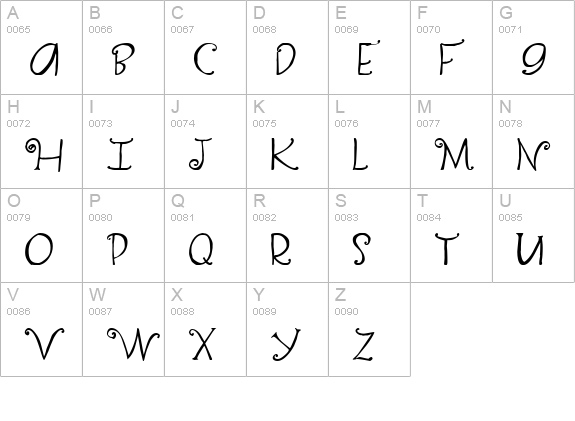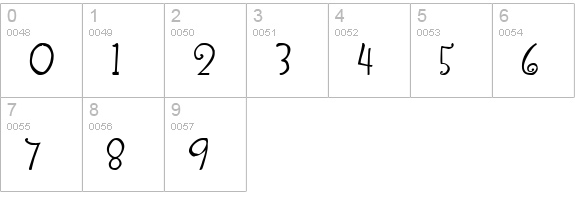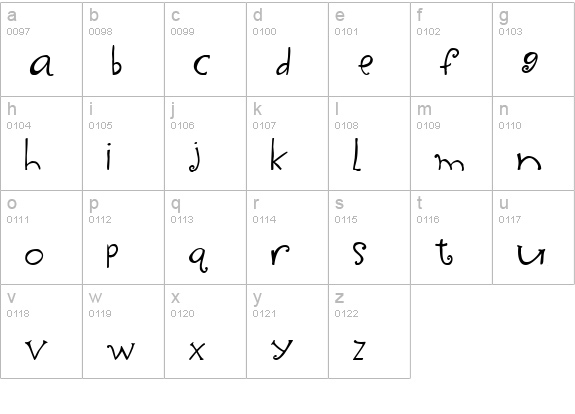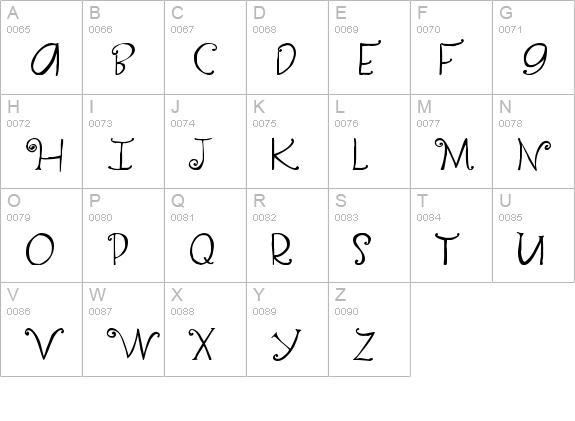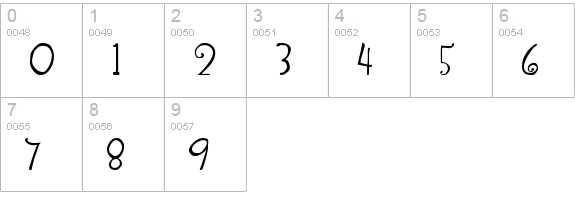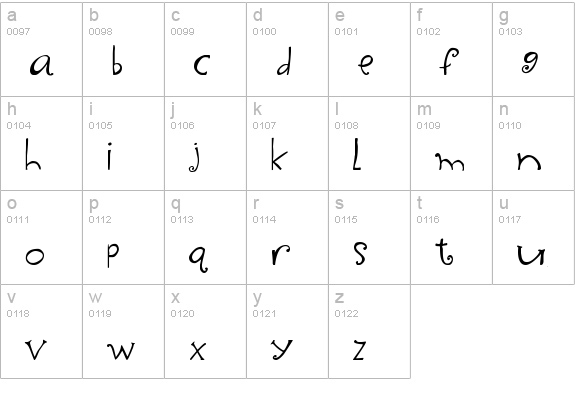
2Peas David Walker Font Details
2Peas David Walker font is a charming and whimsical typeface that exudes a playful and friendly vibe. With its handwritten style and unique character shapes, this font is perfect for adding a touch of personality to your projects. Whether you're creating invitations, greeting cards, or social media graphics, 2Peas David Walker will bring a touch of fun to your designs. One of the best things about 2Peas David Walker font is that it is available for free download at FontsMarket.com. This means that you can easily add this delightful font to your collection without breaking the bank. So go ahead and give your projects a fresh and creative look with 2Peas David Walker font today!